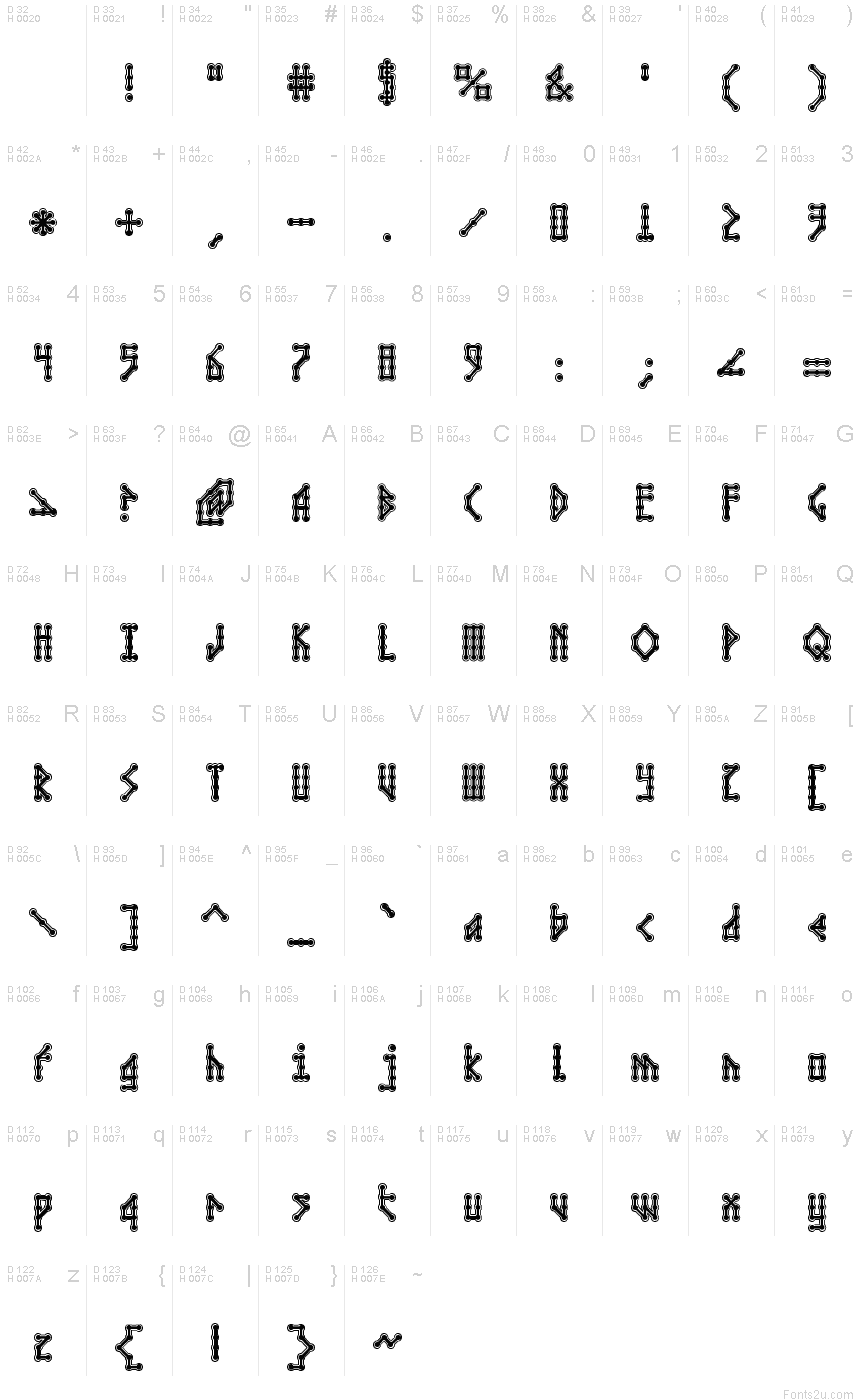
Microbe Collegiate AOE
Microbe Collegiate AOE by Astigmatic One Eye Foundry, is a free futuristic digital font with rounded, capsule-like forms and ringed joints that make each character feel assembled from linked parts. The repeated circular nodes keep the design consistent across the set, giving it a mechanical rhythm instead of a standard geometric build.
It suits sci-fi posters, game menus, tech branding, and short poster titles that need a coded, screen-based tone. Microbe Collegiate AOE also works for badges, labels, and motion graphics, where its modular structure reads as graphic detail rather than plain lettering.